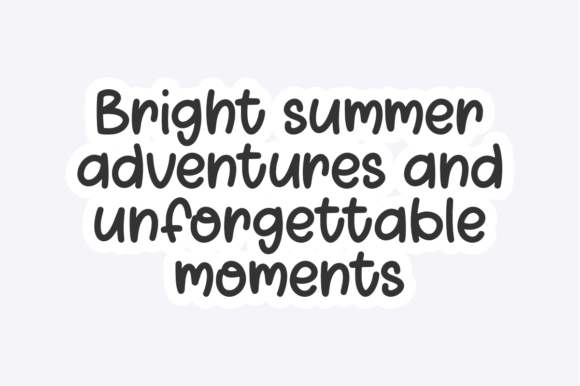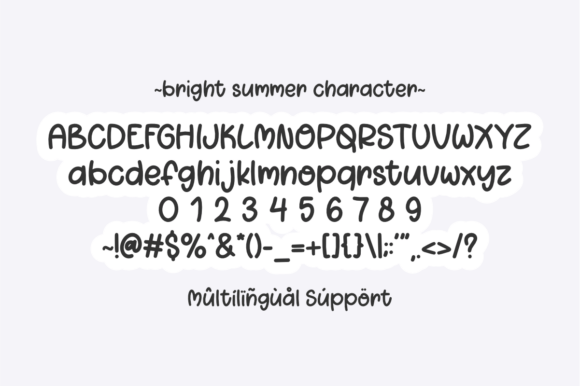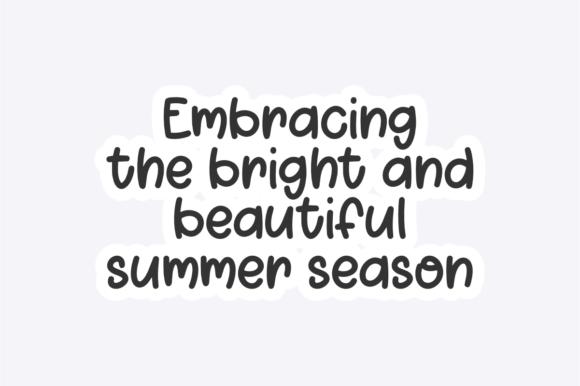
Bright Summer Font
Bright Summer is a cute and playful handwritten font, perfect for planners, stickers, cards, quotes, and craft projects. Ideal for creative moms who love DIY, journaling, and Cricut crafts!